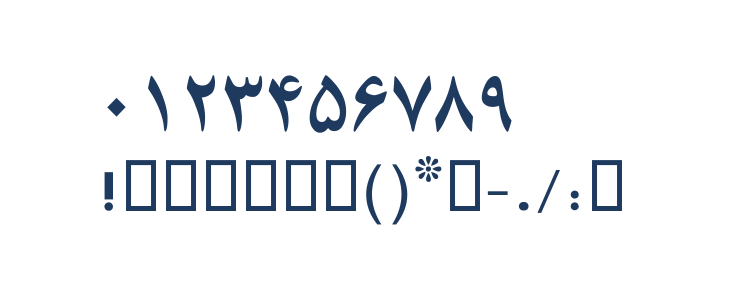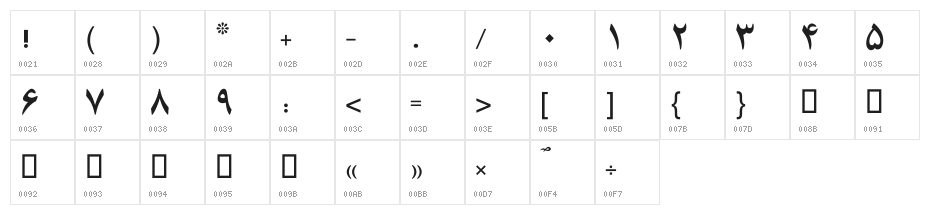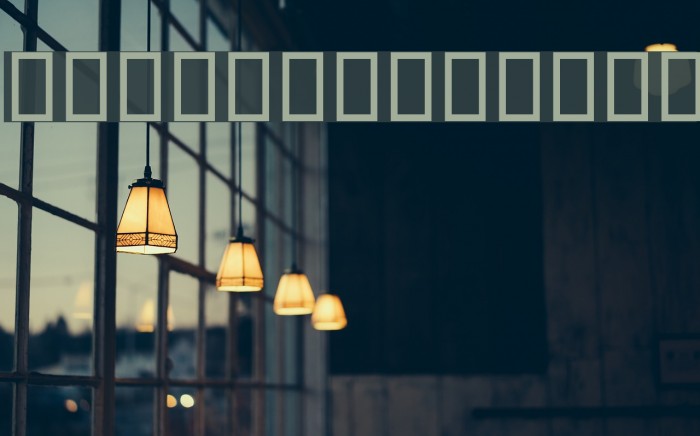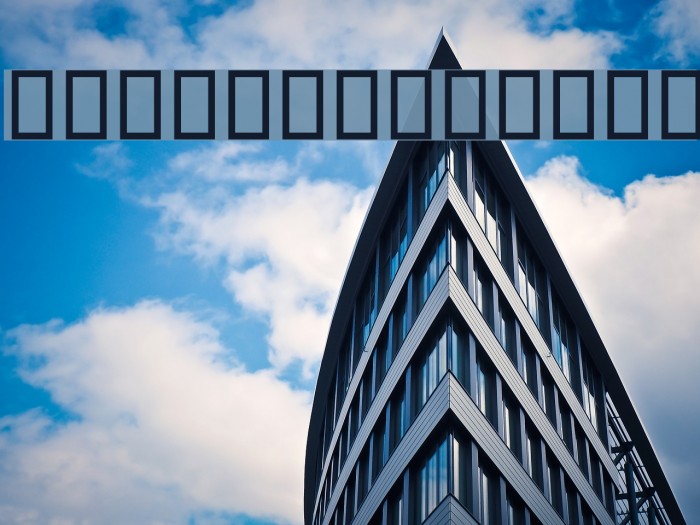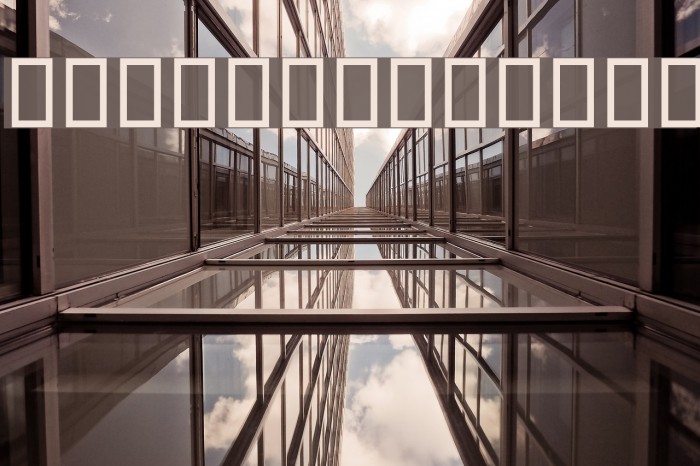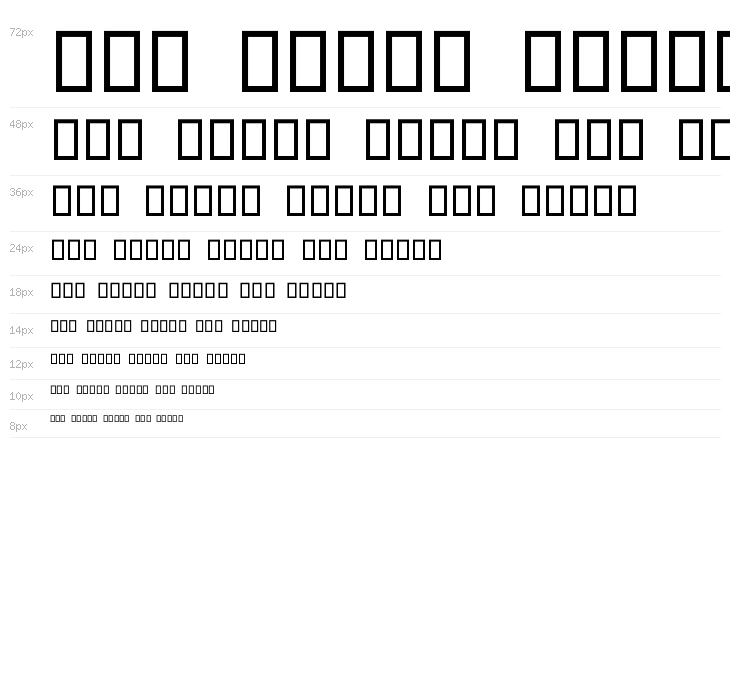
Nehzat Font
Nehzat Description
This font features a distinctive and artistic style, characterized by its unique and flowing script. The characters exhibit a blend of traditional and modern elements, with elegant curves and a dynamic presence. The numerals are particularly stylized, adding a decorative touch that complements the overall aesthetic. This font is well-suited for creative projects that require a touch of sophistication and flair.
| Use Case | Logos, Invitations, Artistic Posters |
| Proposed Projects | Ideal for branding, invitations, artistic posters, and decorative headings. |